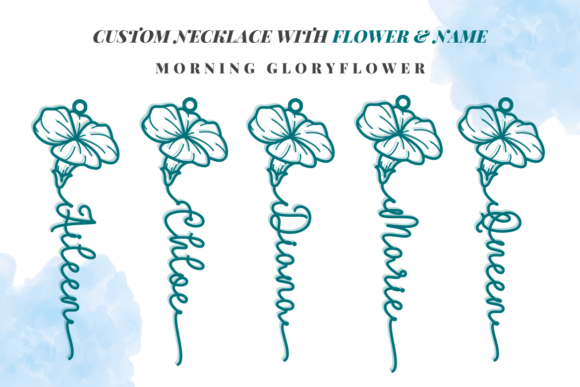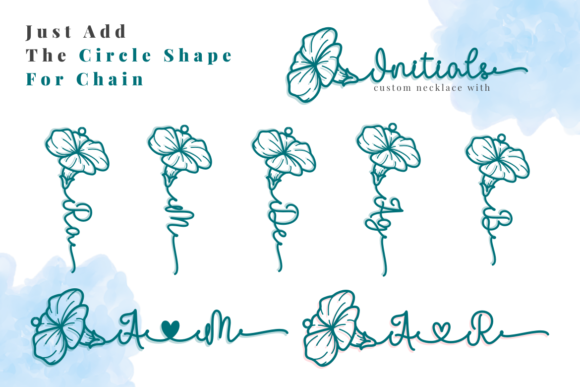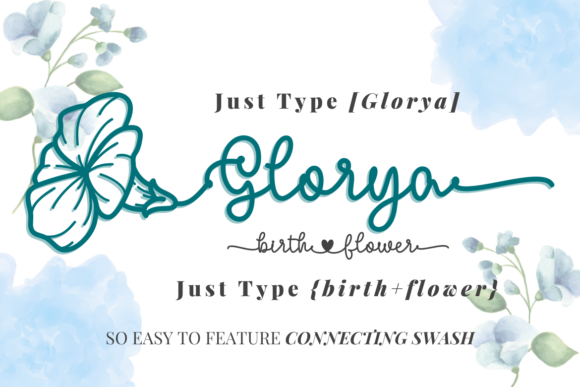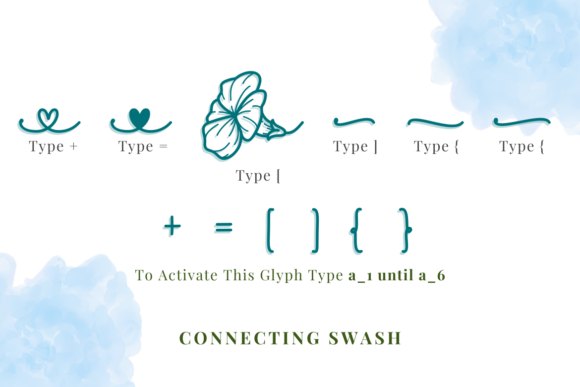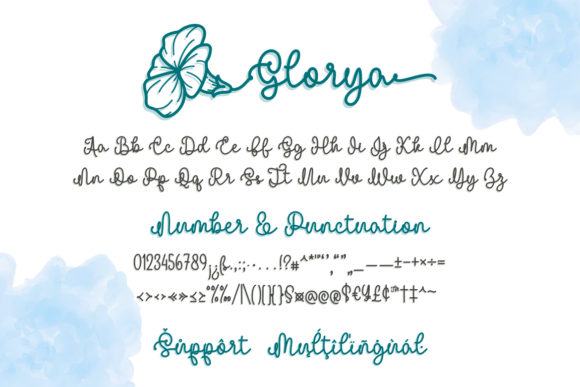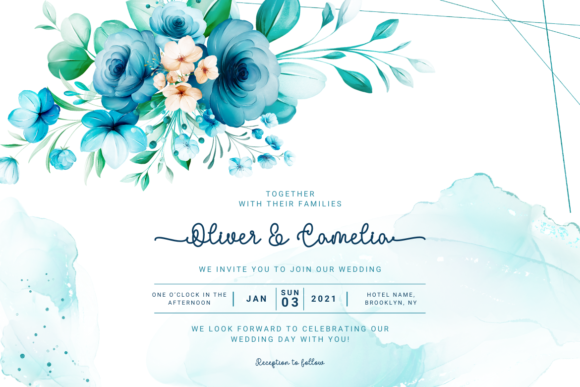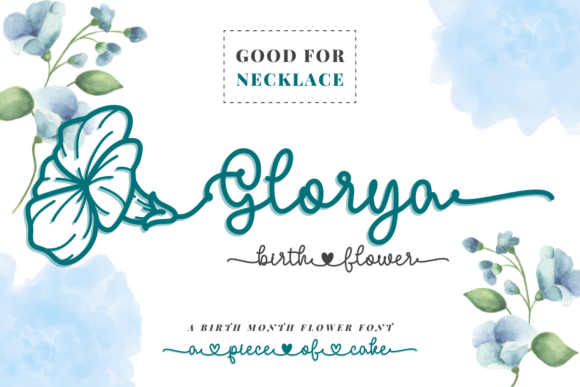
Introducing Glorya Birth Flower Font: Elevate Your Designs with Elegance
Are you a designer, crafter, or DIY enthusiast looking for a font that exudes elegance and sophistication? Look no further than the Glorya Birth Flower Font, a vintage-styled script font that is sure to turn your creative ideas into stunning works of art. In this article, we’ll dive into the features and benefits of this beautiful font, and explore how it can elevate your designs, whether you’re creating Instagram posts, calligraphy scripts, or handmade crafts.
The Story Behind Glorya Birth Flower Font
The Glorya Birth Flower Font is inspired by the September birth flower, the Aster. With its delicate petals and intricate details, the Aster is a symbol of elegance, refinement, and creativity. This font captures the essence of the Aster, with its flowing script and vintage charm. Whether you’re designing for a client or working on a personal project, this font is sure to add a touch of sophistication and glamour.
Key Features of Glorya Birth Flower Font
• Vintage-styled script font: The Glorya Birth Flower Font features a beautiful, cursive script that is reminiscent of classic calligraphy.
• Elegant and refined: With its delicate lines and intricate details, this font is perfect for designs that require a touch of sophistication.
• Multipurpose: Use this font for a variety of projects, from Instagram posts and social media graphics to calligraphy scripts and handmade crafts.
Uses for Glorya Birth Flower Font
The Glorya Birth Flower Font is a versatile font that can be used for a wide range of projects. Here are some ideas to get you started:
• Instagram posts and stories: Add a touch of elegance to your Instagram feed with this beautiful font. Use it to create stunning quotes, announcements, and promotional graphics.
• Calligraphy scripts: Create beautiful calligraphy scripts for special occasions, such as weddings, birthdays, and anniversaries.
• DIY projects: Use this font to add a personal touch to your DIY projects, such as handmade cards, gift tags, and scrapbook pages.
• Branding and packaging: Use this font to create elegant branding and packaging materials, such as logos, business cards, and product labels.
Tips for Using Glorya Birth Flower Font
To get the most out of the Glorya Birth Flower Font, here are some tips to keep in mind:
• Pair with complementary fonts: Pair this font with complementary fonts, such as sans-serif fonts or serif fonts, to create visual interest and contrast.
• Experiment with colors: Experiment with different colors and textures to add depth and dimension to your designs.
• Pay attention to spacing: Pay attention to spacing and kerning to ensure that your text is easy to read and visually appealing.
The Glorya Birth Flower Font is a beautiful, vintage-styled script font that is sure to elevate your designs and add a touch of elegance and sophistication. Whether you’re a designer, crafter, or DIY enthusiast, this font is a versatile and valuable addition to your toolkit. With its flowing script and intricate details, this font is perfect for a wide range of projects, from Instagram posts and calligraphy scripts to handmade crafts and branding materials. So why wait? Download the Glorya Birth Flower Font today and start creating stunning works of art!